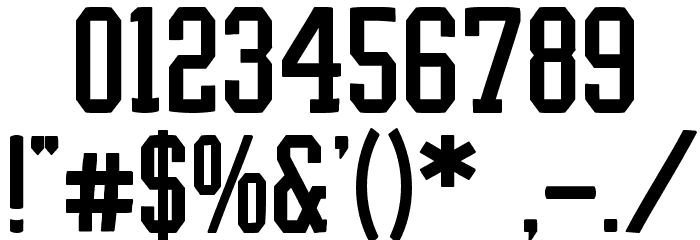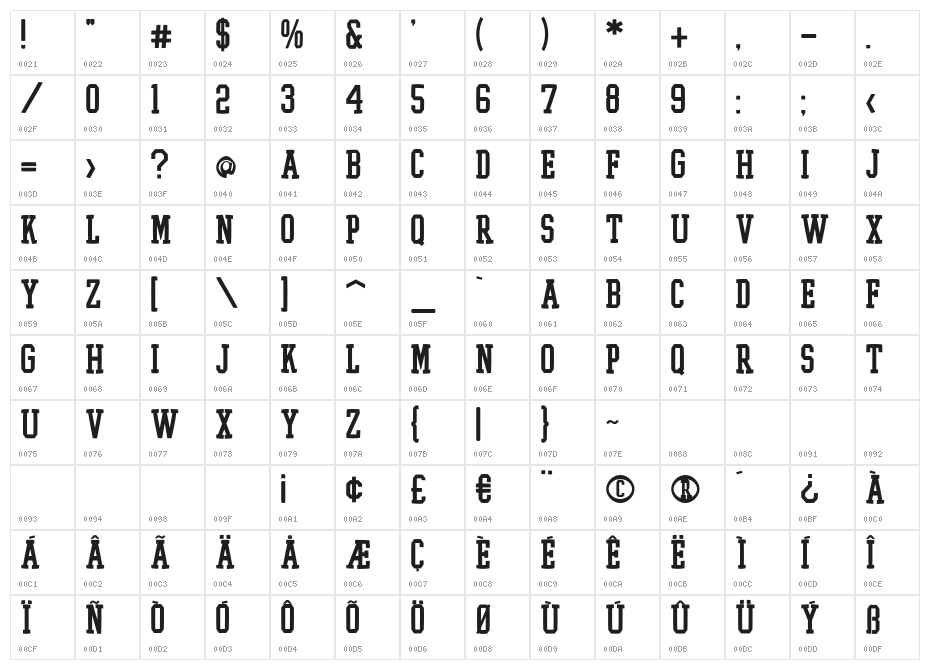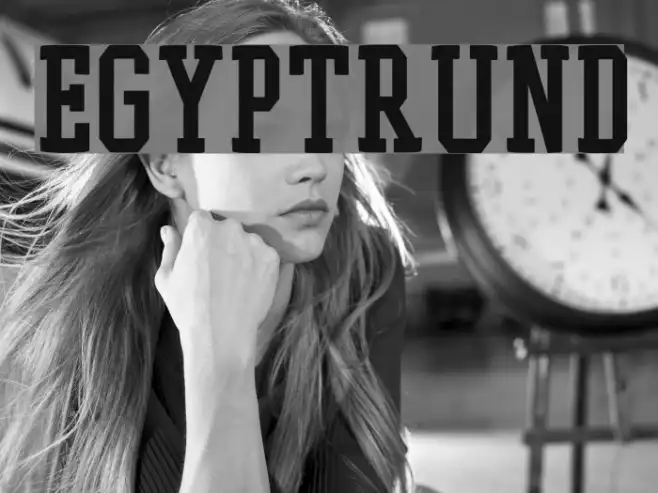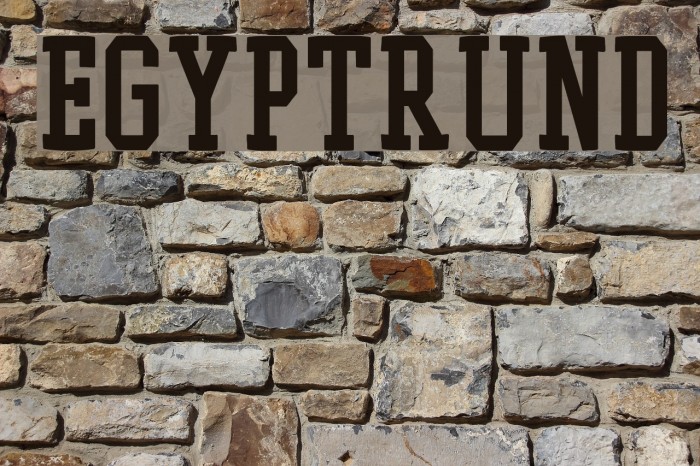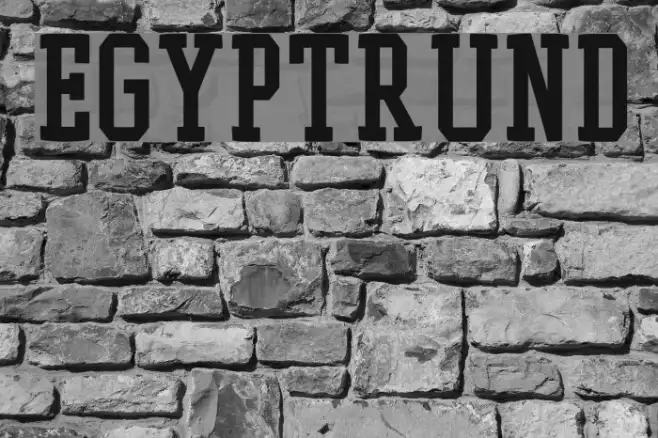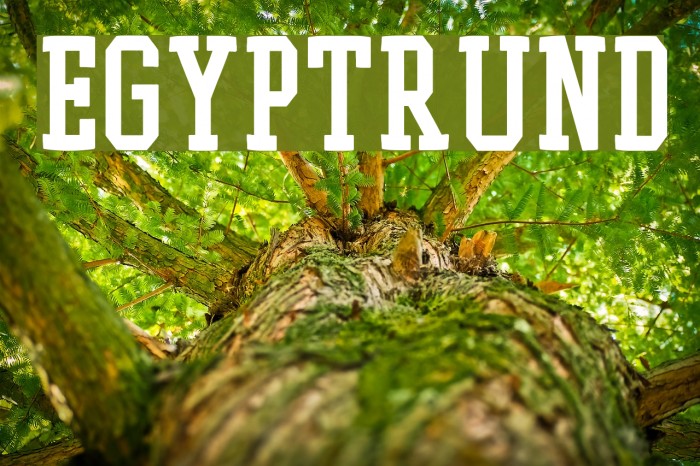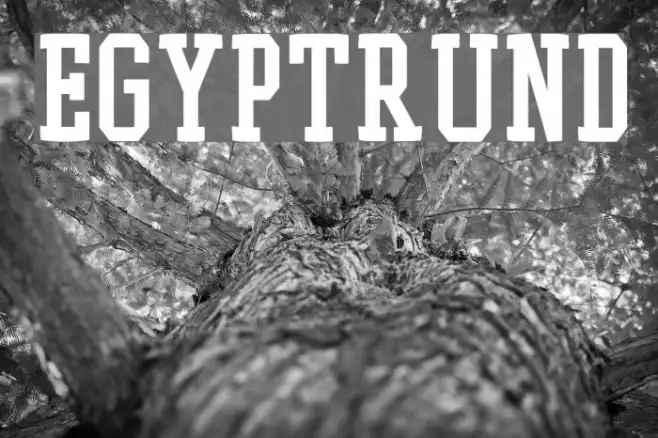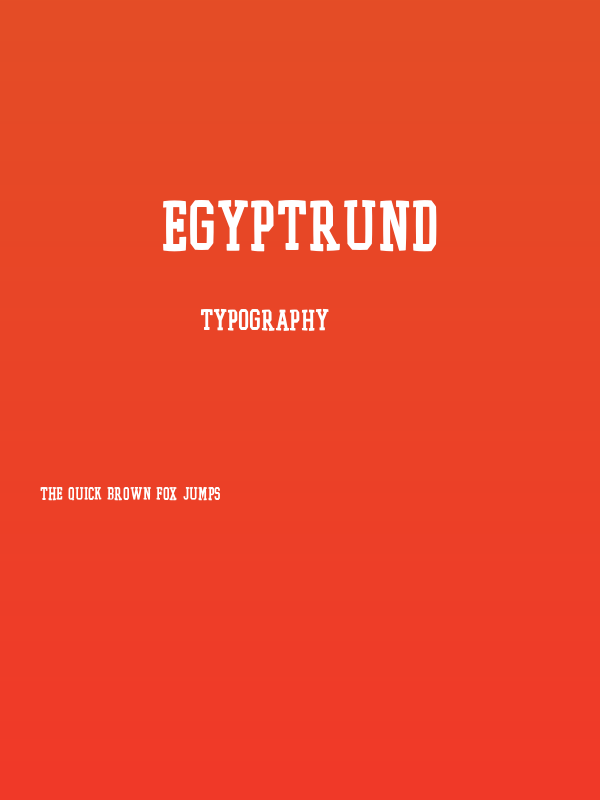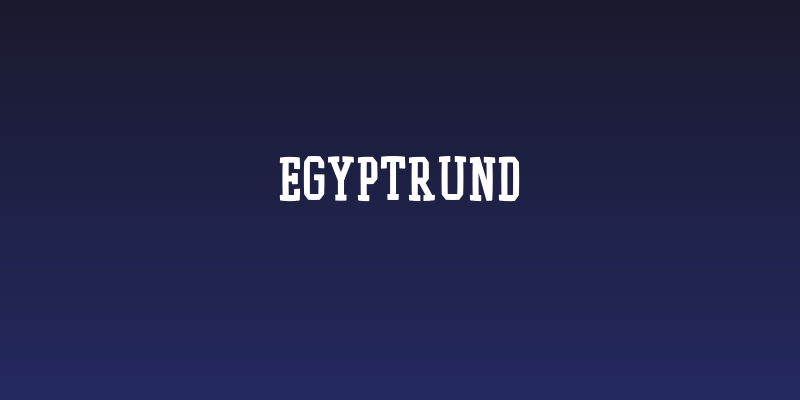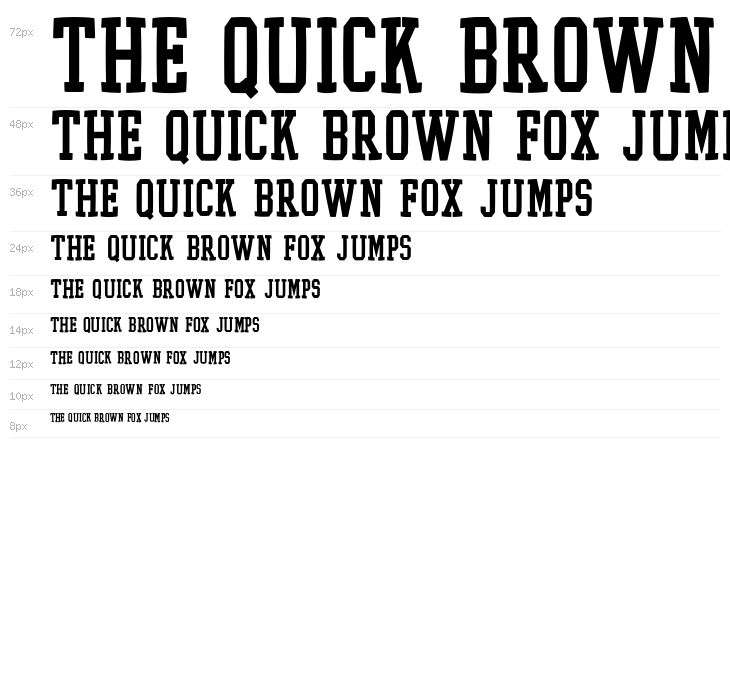
EgyptRund Font
EgyptRund Description
This font exhibits a bold and impactful presence with its strong, slab serif design. The characters are well-defined with thick strokes and a robust structure, making it ideal for commanding attention. The uppercase letters are particularly striking, with a uniform height and width that contribute to a cohesive and balanced appearance. The numerals and special characters maintain the same boldness, ensuring consistency across all text elements. This font's design is reminiscent of vintage Western typography, yet it retains a modern edge that makes it versatile for various applications.
| Overall Style | Vintage, Modern |
| Proposed Projects | Ideal for posters, headlines, branding, and any project requiring a strong, attention-grabbing typeface. |